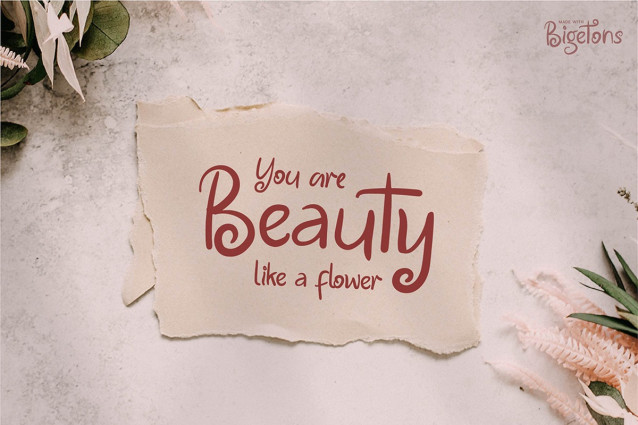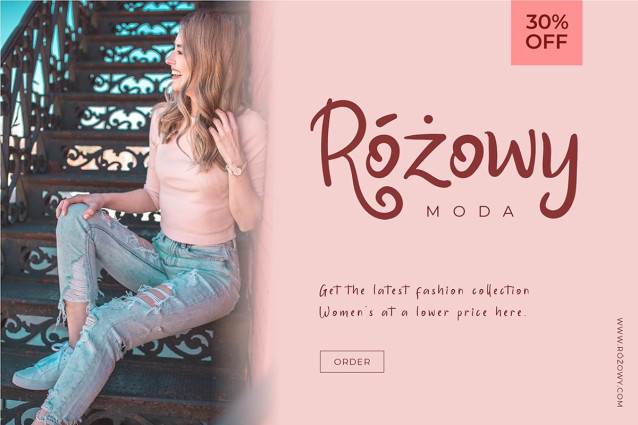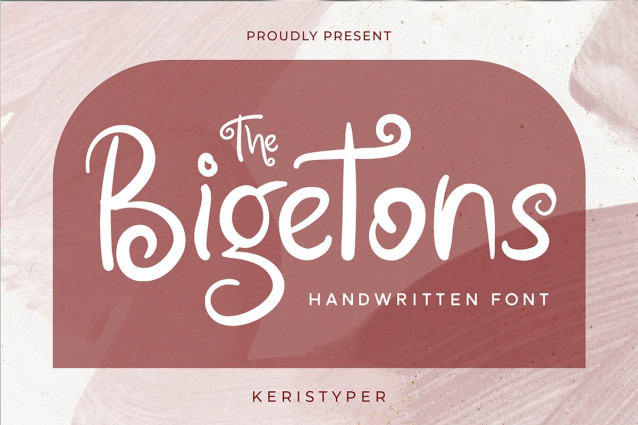
Bigetons Font
Bigetons Font is born from bold and fun style fonts. This font is good for logo design, Social media, Movie Titles, Books Titles, short text even long text letters, and good for your secondary text font with sans or serif.